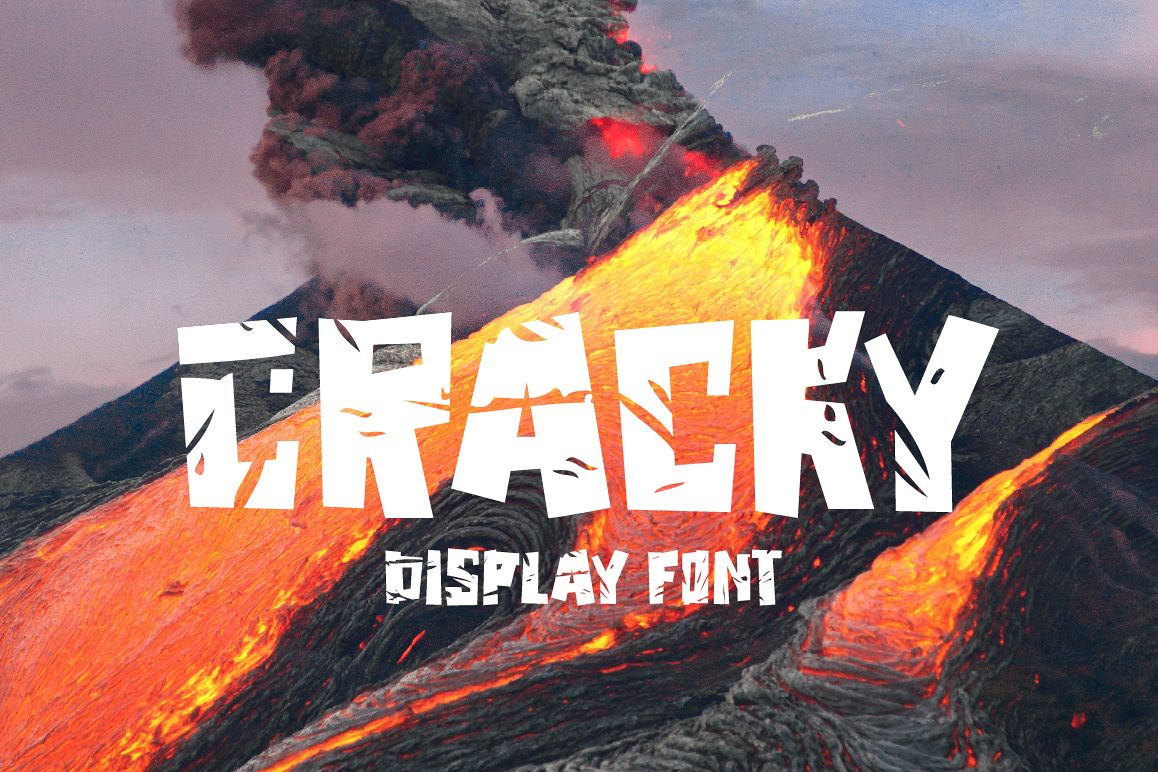
Cracky Display Font
cracky-Regular
Cracky is a torn font with sharp edges. It contains a full set of lower & uppercase letters, large range of punctuation, numerals, cyrillic characters and multilingual support.
Perfect for quotes, posters, t-shirt, logos, product packaging, book cover and etc.